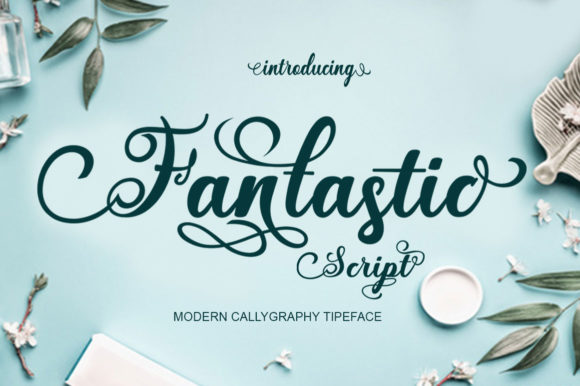
Welcome to the realm of Fantastic Script Font, a calligraphic masterpiece that will transport your designs to new heights of elegance and sophistication. As a script font, it exudes a fluid, enchanting flow that captivates the eyes and sparks imagination. Each letter, meticulously crafted by the talented team at Saidi Studio, is a work of art, featuring smooth curves, enchanting ligatures, and bold swashes.
Unleash your creativity and let your words take center stage with Fantastic Script Font. Its versatility knows no bounds, making it the perfect choice for a wide range of design projects. From wedding invitations that radiate romance to branding materials that exude professionalism, this font adds a touch of magic to everything it graces.
Embrace the artistry of Fantastic Script Font and elevate your designs to the next level. Its captivating charm will leave a lasting impression on your audience, whether you're creating logos, social media graphics, or eye-catching headlines.
Here's why Fantastic Script Font deserves a place in your design toolbox:
* **Unparalleled Beauty:** Its intricate details and graceful strokes make your words come alive, creating a visual masterpiece that commands attention.
* **Versatility Without Limits:** From elegant invitations to whimsical social media posts, Fantastic Script Font seamlessly adapts to any project, adding a touch of sophistication and individuality.
* **Effortless Elegance:** Its intuitive design makes it easy to use, allowing you to effortlessly create stunning designs without spending hours tweaking and adjusting.
* **Endless Creative Possibilities:** With its range of styles and swashes, Fantastic Script Font opens up a world of creative possibilities, enabling you to craft designs that reflect your unique vision.
* **Unleash Your Imagination:** Let your creativity soar as you explore the endless possibilities that Fantastic Script Font offers, transforming your words into captivating works of art.
Don't settle for ordinary fonts that blend into the background. Choose Fantastic Script Font, the script font that captivates, inspires, and leaves a lasting impression. Embrace the artistry, unlock your creativity, and elevate your designs to new heights of brilliance.